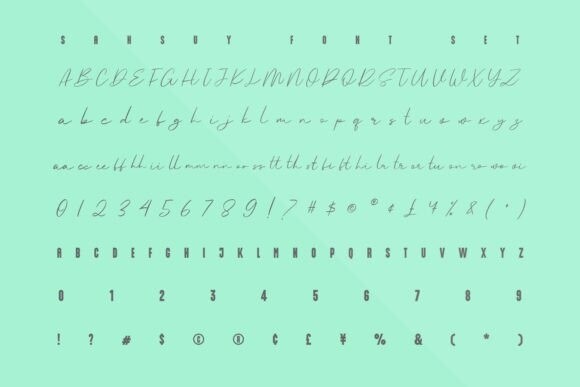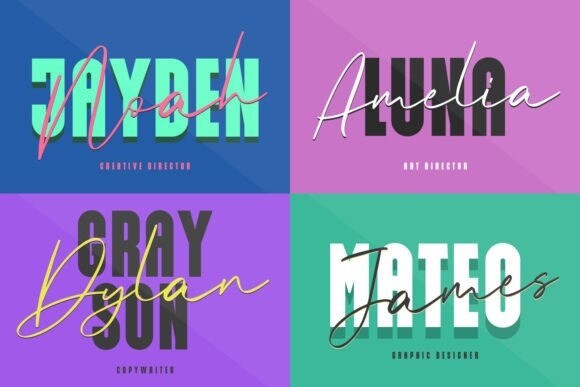
Sansuy Font Duo
Designer: Maulana Creative
Sansuy Font Duo is a spectacular duo font (serif and script). Incredibly versatile, this font fits a wide pool of designs, elevating them to the highest levels. Add this font to your favorite creative ideas and notice how it makes them come alive!